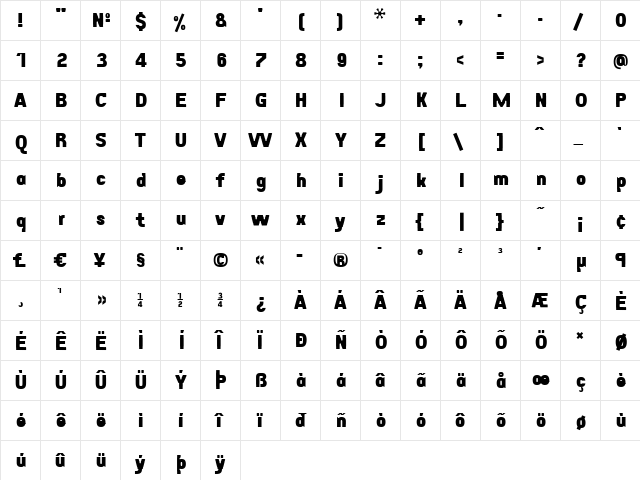
Eunuverse Bold
| Foundry | Eunuverse by Barry Deck. \ Barry Deck. Published by Thirstype |
Design Context for Eunuverse Typeface
Eunuverse is a composed and adaptable typeface that performs quietly and consistently across a wide range of design contexts. The heavy weight commands attention and anchors typographic hierarchies.